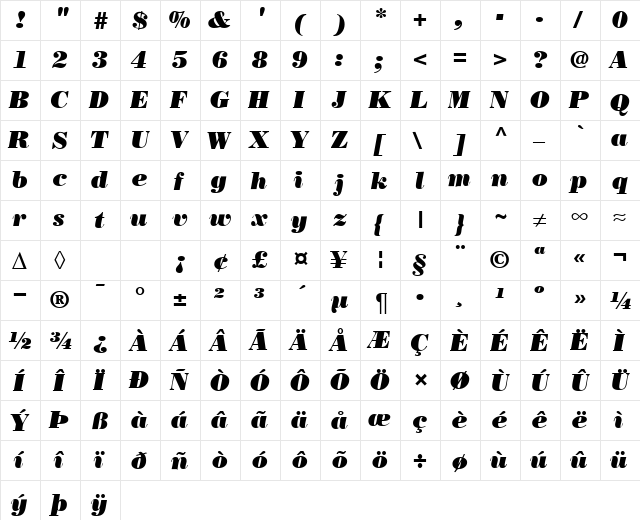
BodoniPosterUltra RegularItalic
Design Context for BodoniPosterUltra Typeface
BodoniPosterUltra offers clean, dependable letterforms without strong stylistic allegiance, making it a practical choice for designers who need flexibility. The dynamic lean of this cut emphasises speed and emphasis in any layout.
Pro Tip: Try BodoniPosterUltra for annotation and caption copy alongside an upright companion — the contrast in angle creates a dynamic but ordered typographic system.